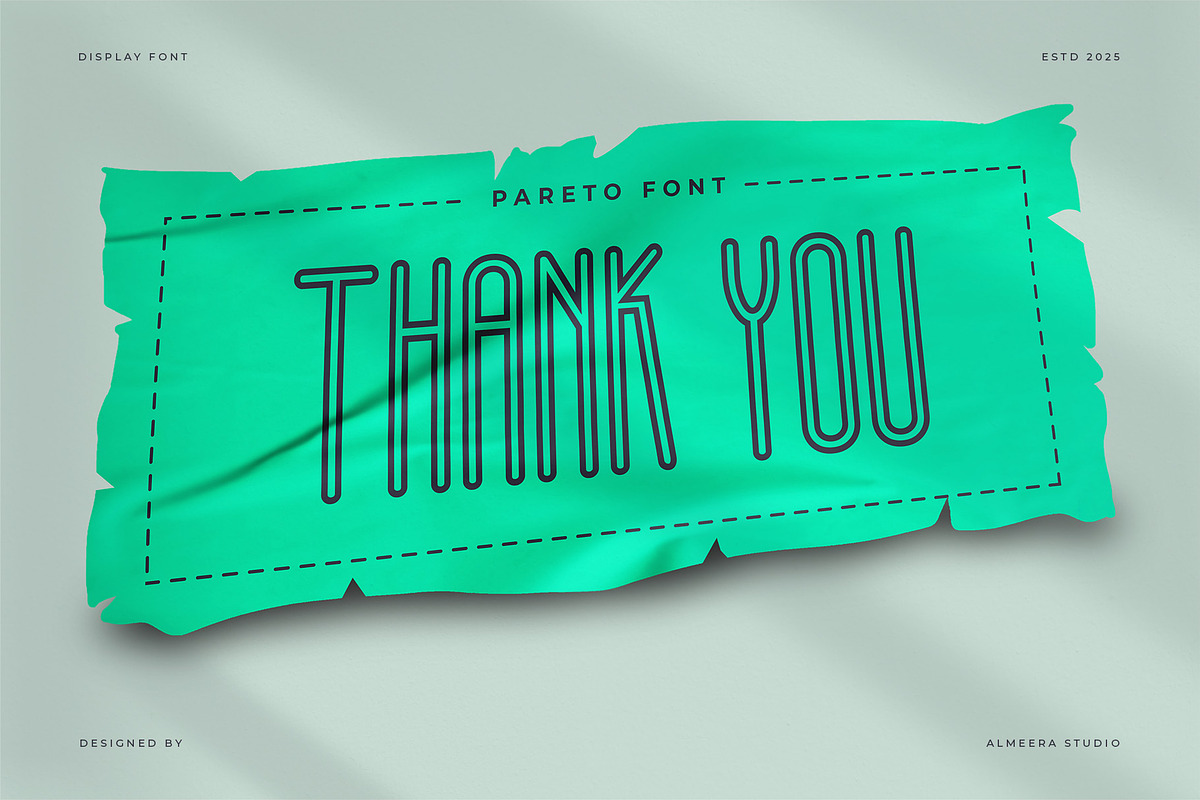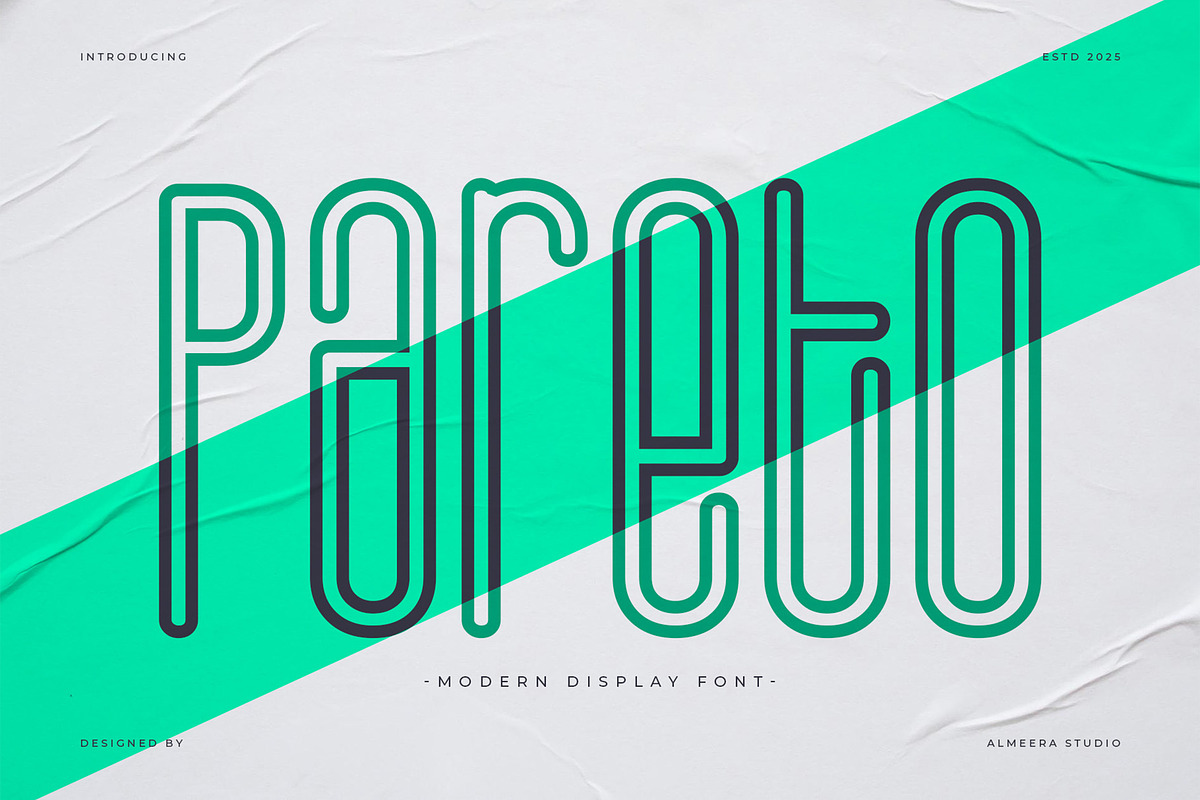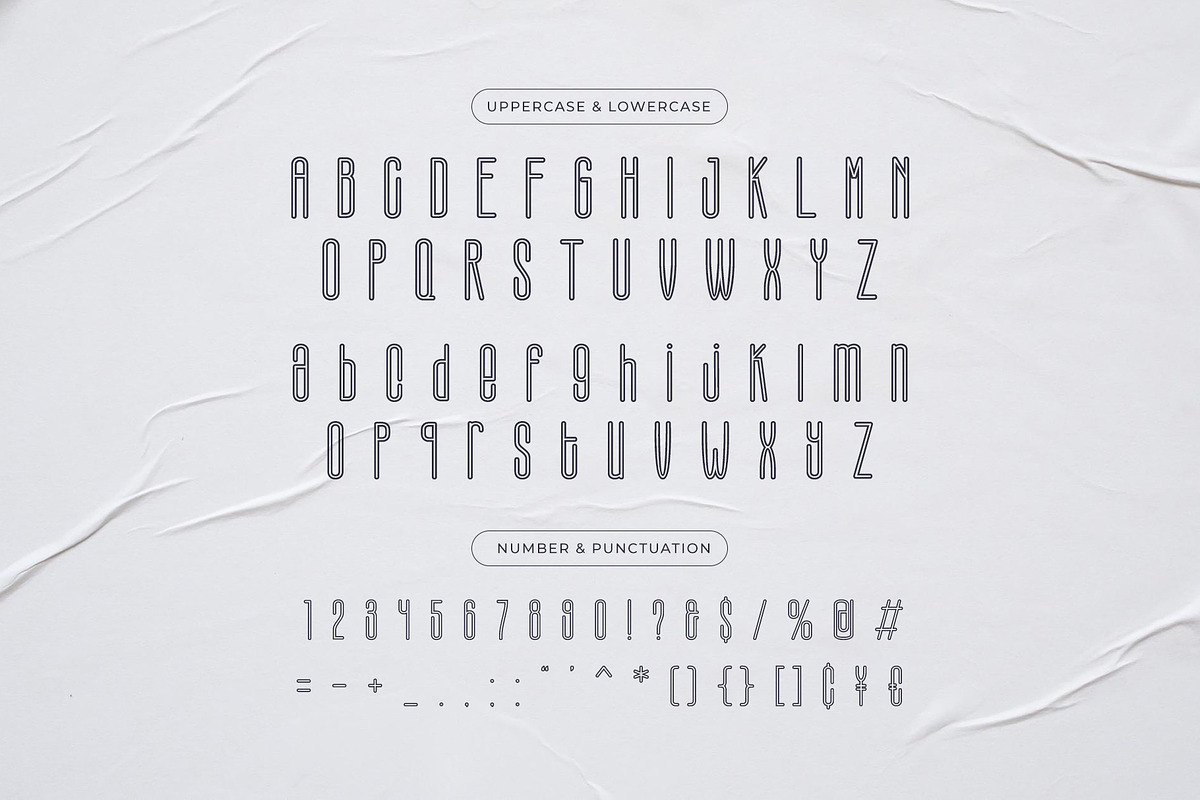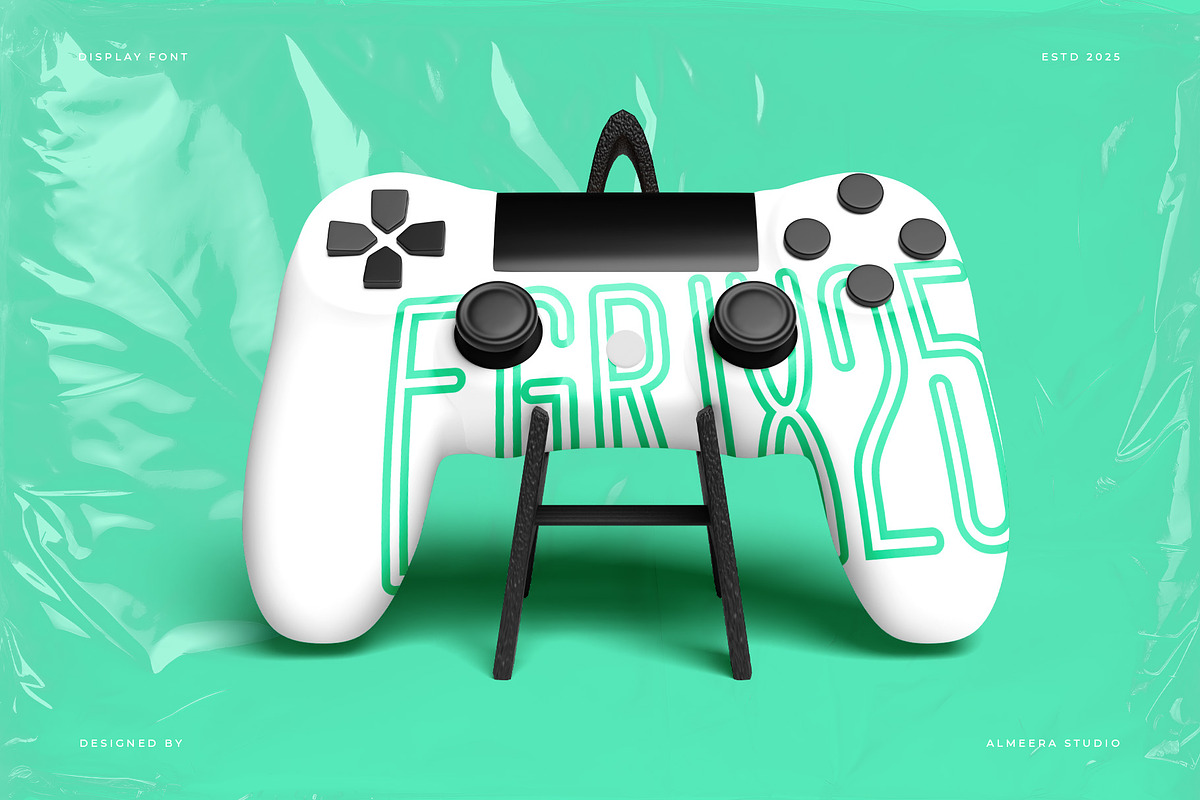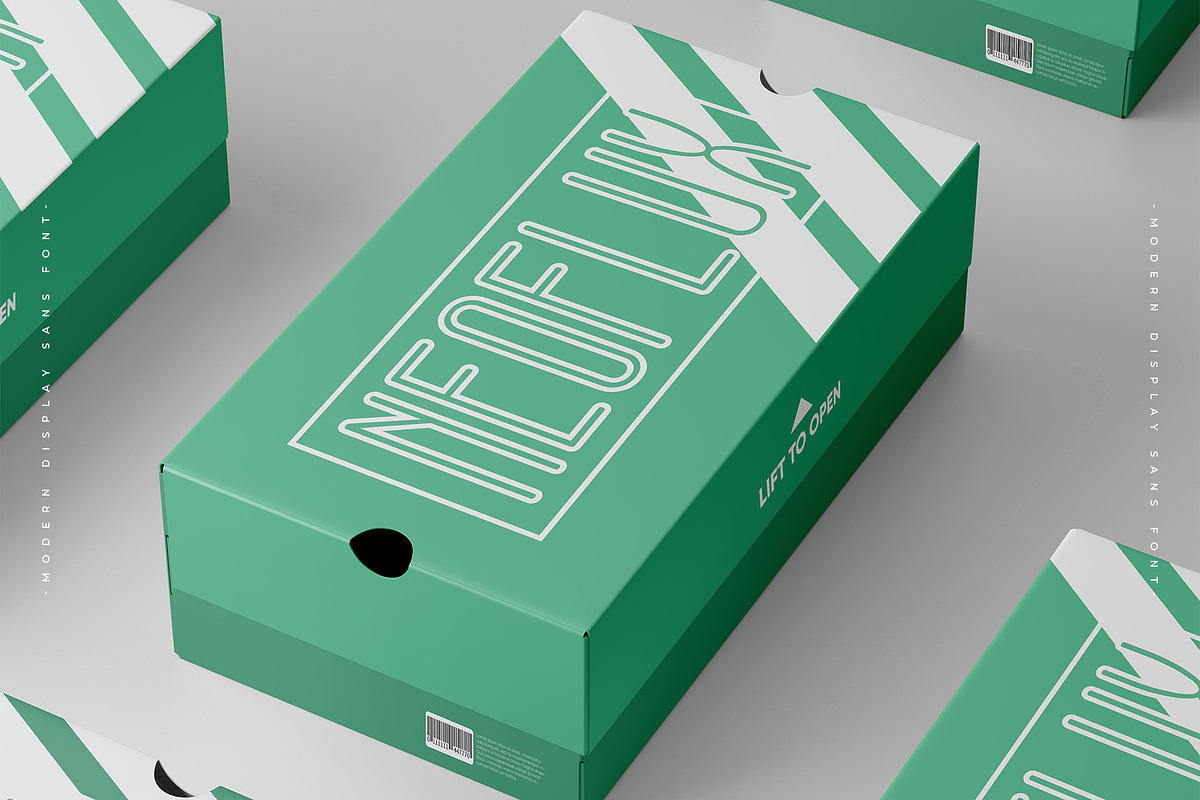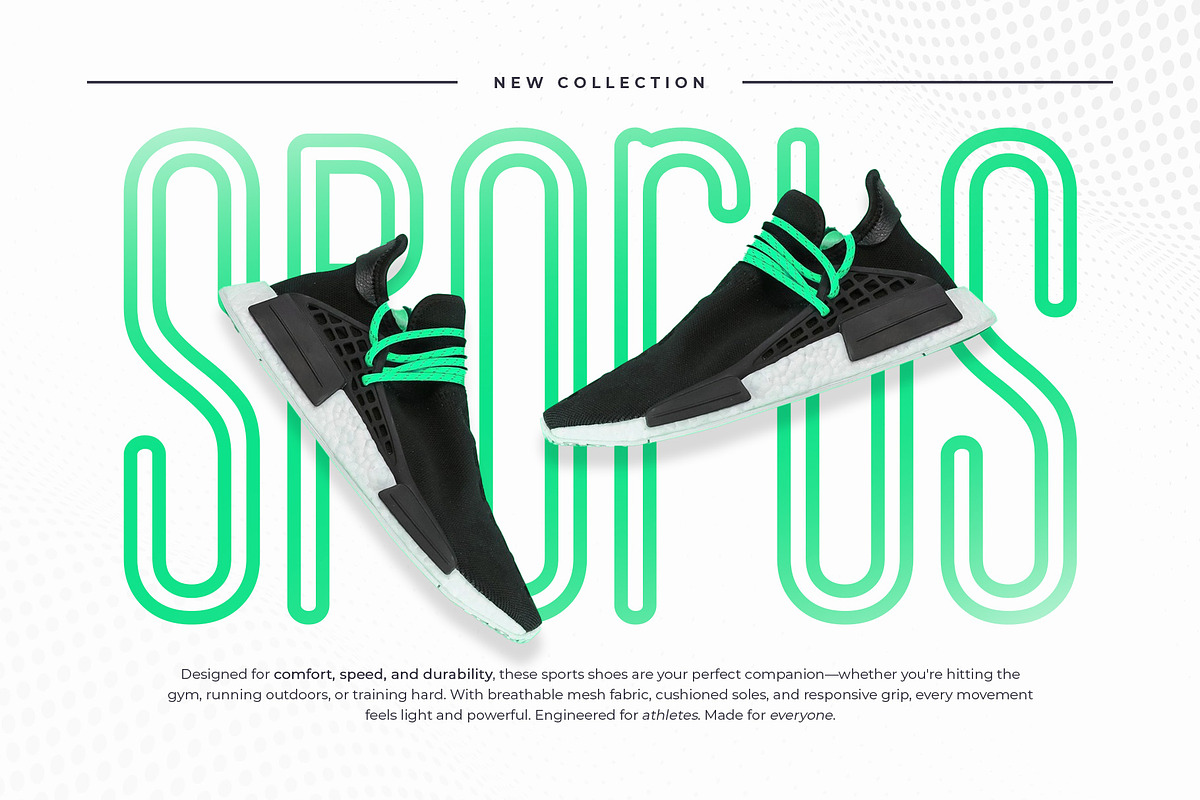
Pareto
Pareto is a contemporary display font with geometric influence and confident character. Bold, structured, and versatile — it works beautifully across fashion headlines, bold branding, and creative layouts. Pareto offers a perfect balance between minimalism and strength.